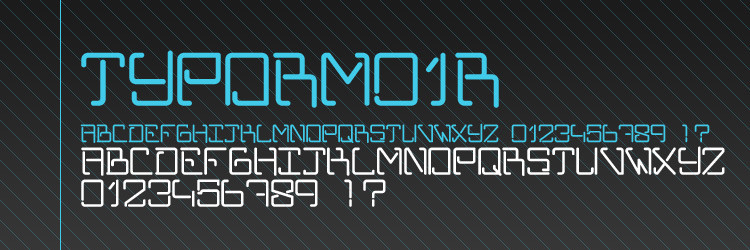
RGSONE β€” TYPORM01R Font
Description Rounded version enjoy
very good and clean typo! i like it! ^_______^
THE FONT IS SEXY.
That's a really dope font!
et les accents ? franΓ§ais que tu es !
sympa sinon
Vu que c'est des majuscules ca pose pas probleme
C'est ma premiere typo, j'ai surtout tester si tous marchΓ© bin la prochaine sera beaucoup plsu complete je pense
en franΓ§ais, les majuscules prennent des accents (Γ§a c'Γ©tait juste pour me la jouer pivot)